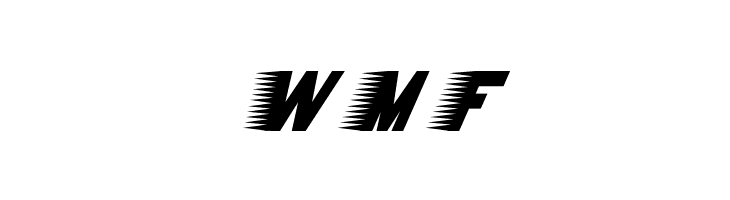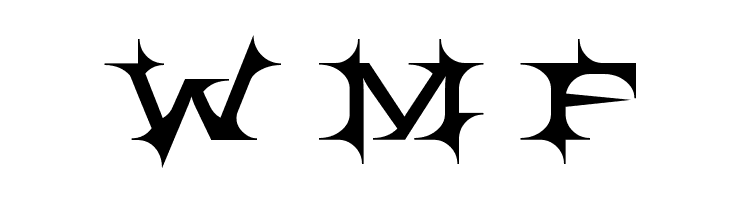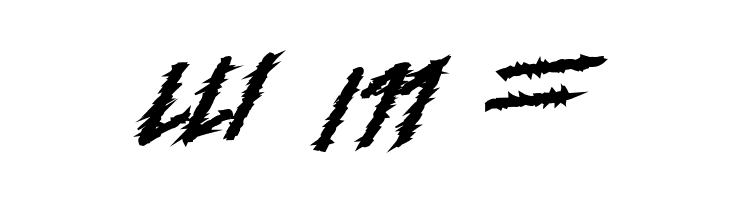
A bold, pixelated font inspired by retro digital displays.
A playful, hand-drawn font with an organic, whimsical style.
A decorative script font with a modern, calligraphic flair.
A bold, jagged font with an earthquake-inspired design.
A bold, decorative font with a dynamic echo effect.
A bold, abstract font with fluid, imaginative shapes and a futuristic feel.
A quirky, hand-drawn font with irregular, angular lines and a playful style.
A bold, geometric font with sharp angles and an outlined, futuristic design.
A tall, narrow font with high contrast, ideal for elegant and sophisticated designs.
A bold, angular font with sharp, geometric shapes and dynamic energy.
A bold, outlined font with a modern and geometric style.
A futuristic, dotted font with a digital display aesthetic.
A futuristic, dotted font with a slanted, digital style.
A bold, retro font with a playful, vintage style.
A bold, decorative font with blocky characters and playful star elements.
A playful, hand-drawn outline font with a bold and whimsical style.